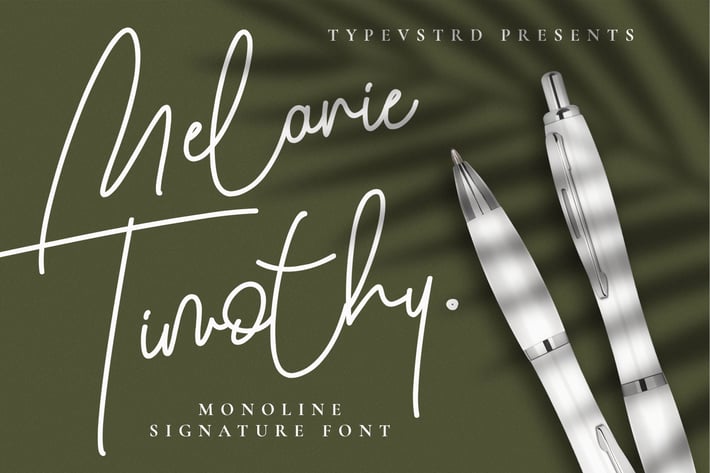
Melanie Timothy Monoline Signature Font
Introducing Melanie Timothy Monoline Signature Font
Melanie Timothy Monoline Signature Font is a signature font script with monoline style, ideal for use in projects that need an organic and natural style. This font is great for logo, logotype, branding, wedding, fashion, label, book cover, t-shirt, instagram post, and other, and can add an elegant and classy look to your work.